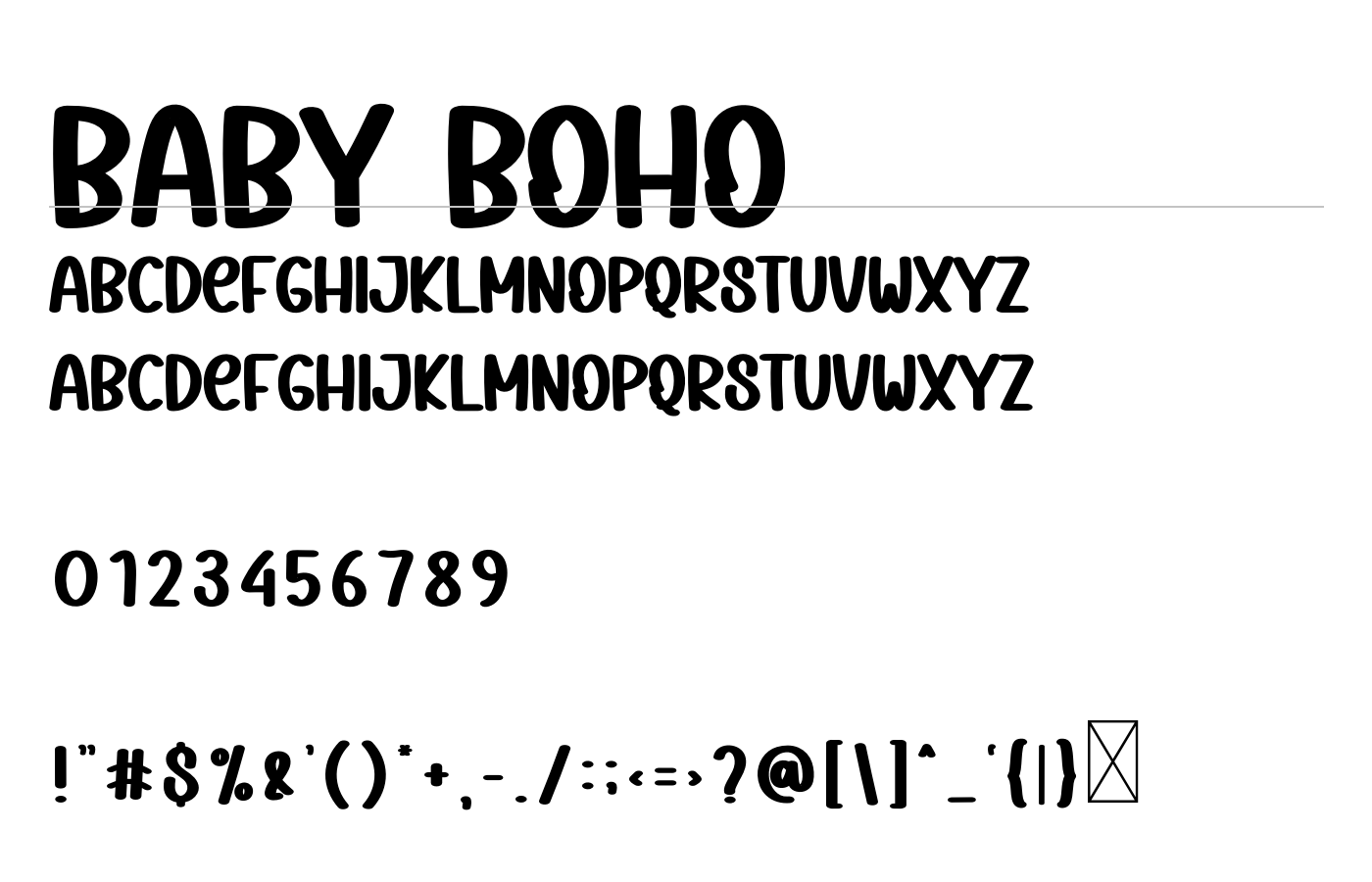
Baby Boho is a playful sans serif font with a friendly, hand-drawn feel that makes it perfect for projects needing a whimsical and approachable touch. Its rounded, slightly irregular letterforms give it a casual and warm personality, ideal for children’s designs, informal branding, or creative headlines that want to evoke fun and charm. This font works well in logos, posters, and packaging where a lighthearted and engaging tone is desired.
Baby Boho Font
About Baby Boho Font
| Font family | Baby Boho Font |